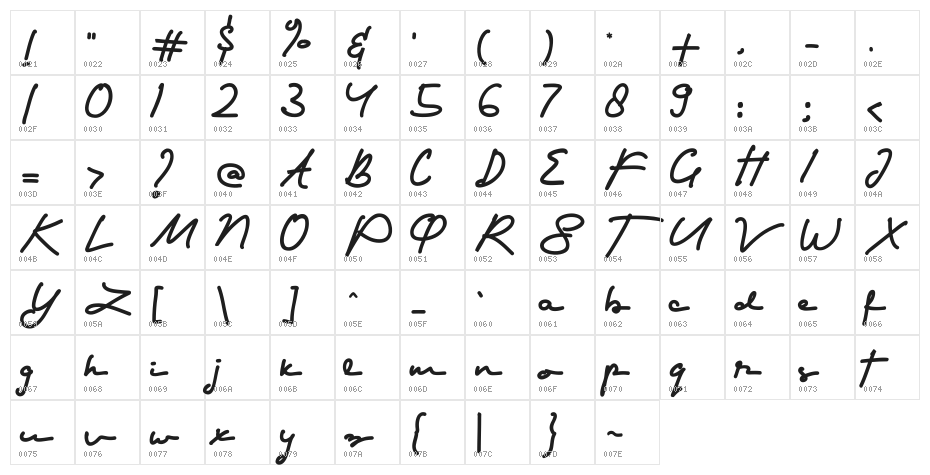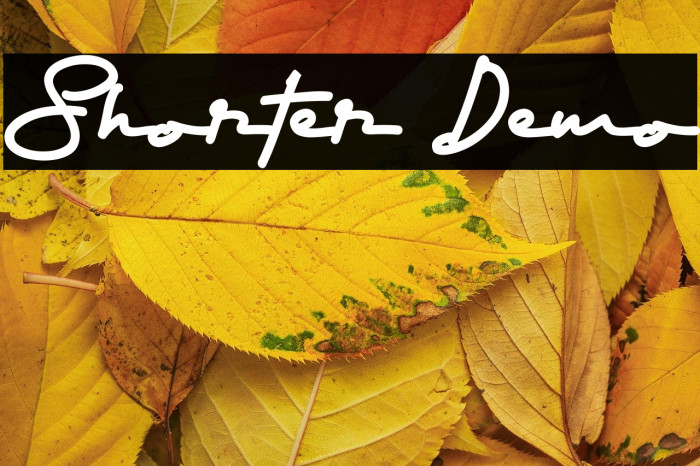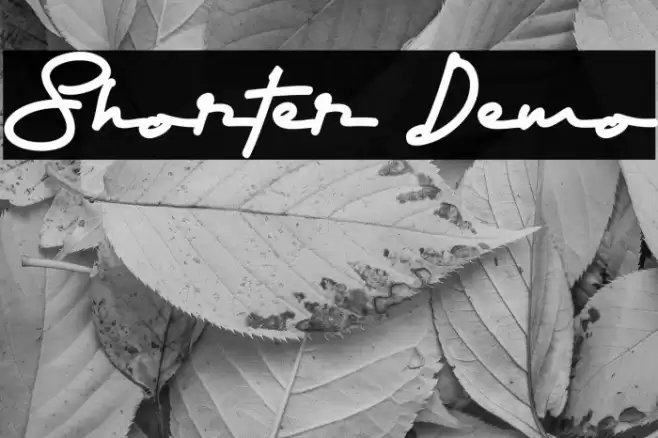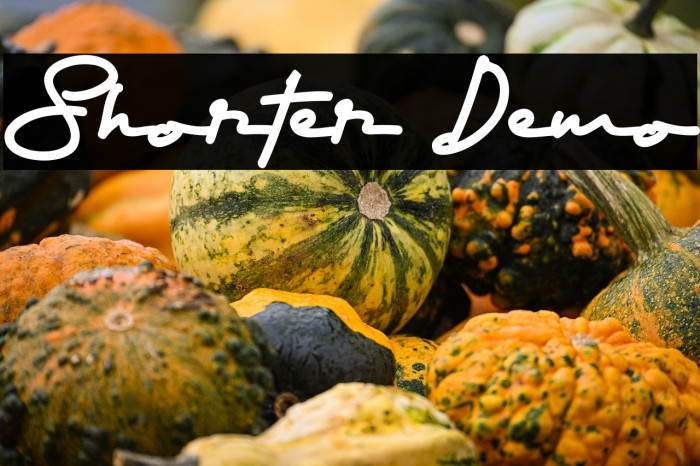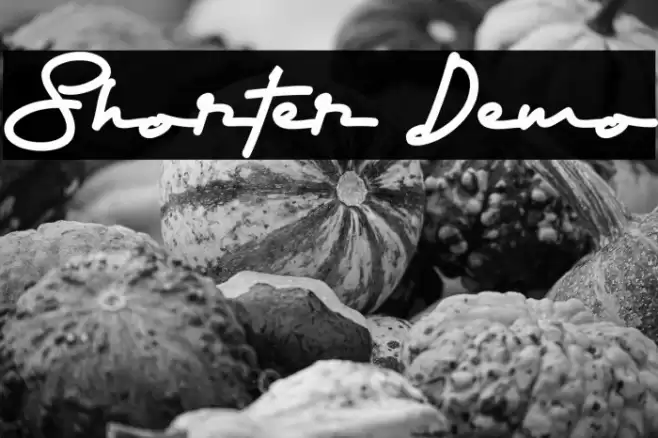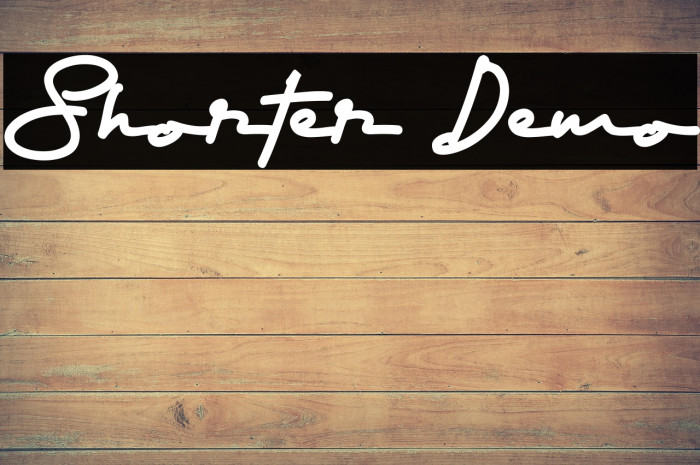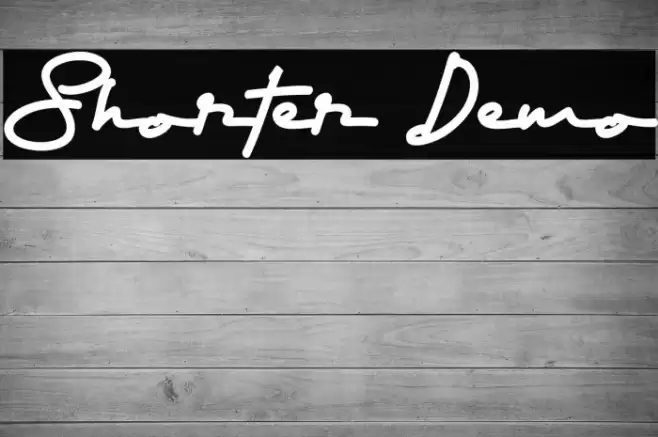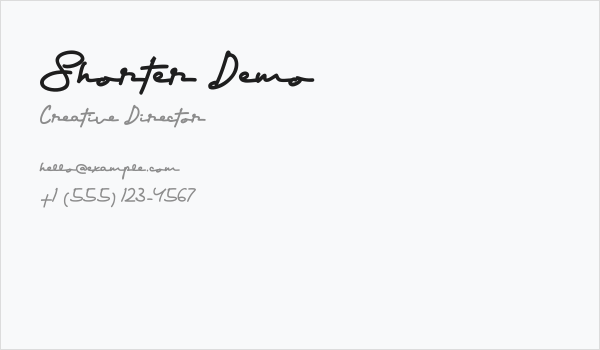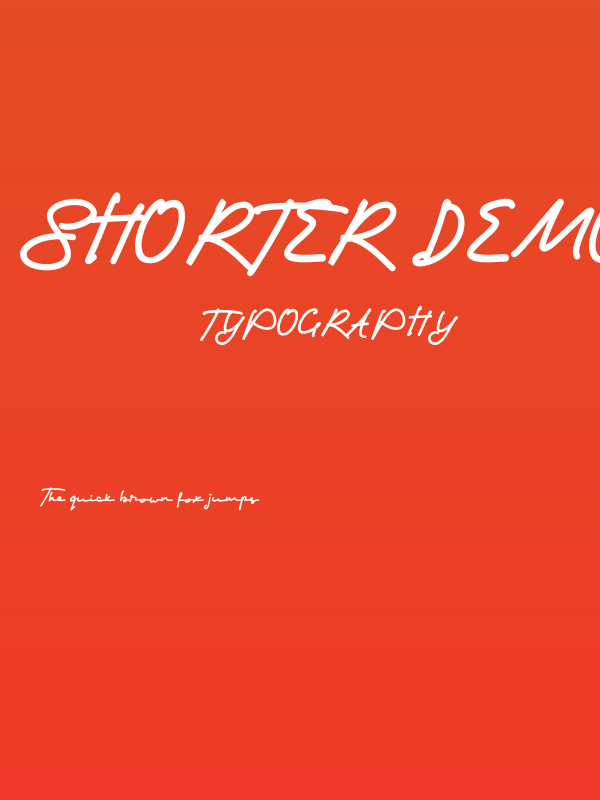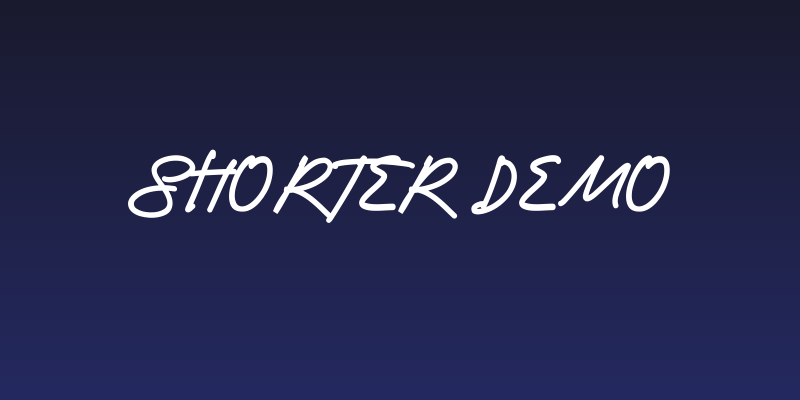
Shorter Demo Font
Shorter Demo Description
This font exudes a casual, handwritten style with a playful and informal appearance. The uppercase letters are slightly slanted, giving a dynamic and lively feel, while the lowercase letters maintain a consistent flow, reminiscent of cursive handwriting. The numbers are bold and rounded, ensuring readability. Special characters are creatively designed, adding to the font's unique personality. The overall style is approachable and friendly, making it suitable for projects that require a personal touch.
| Use Case | Logos, Invitations, Social Media Graphics |
| Proposed Projects | Ideal for greeting cards, personal invitations, casual branding, and social media graphics. |